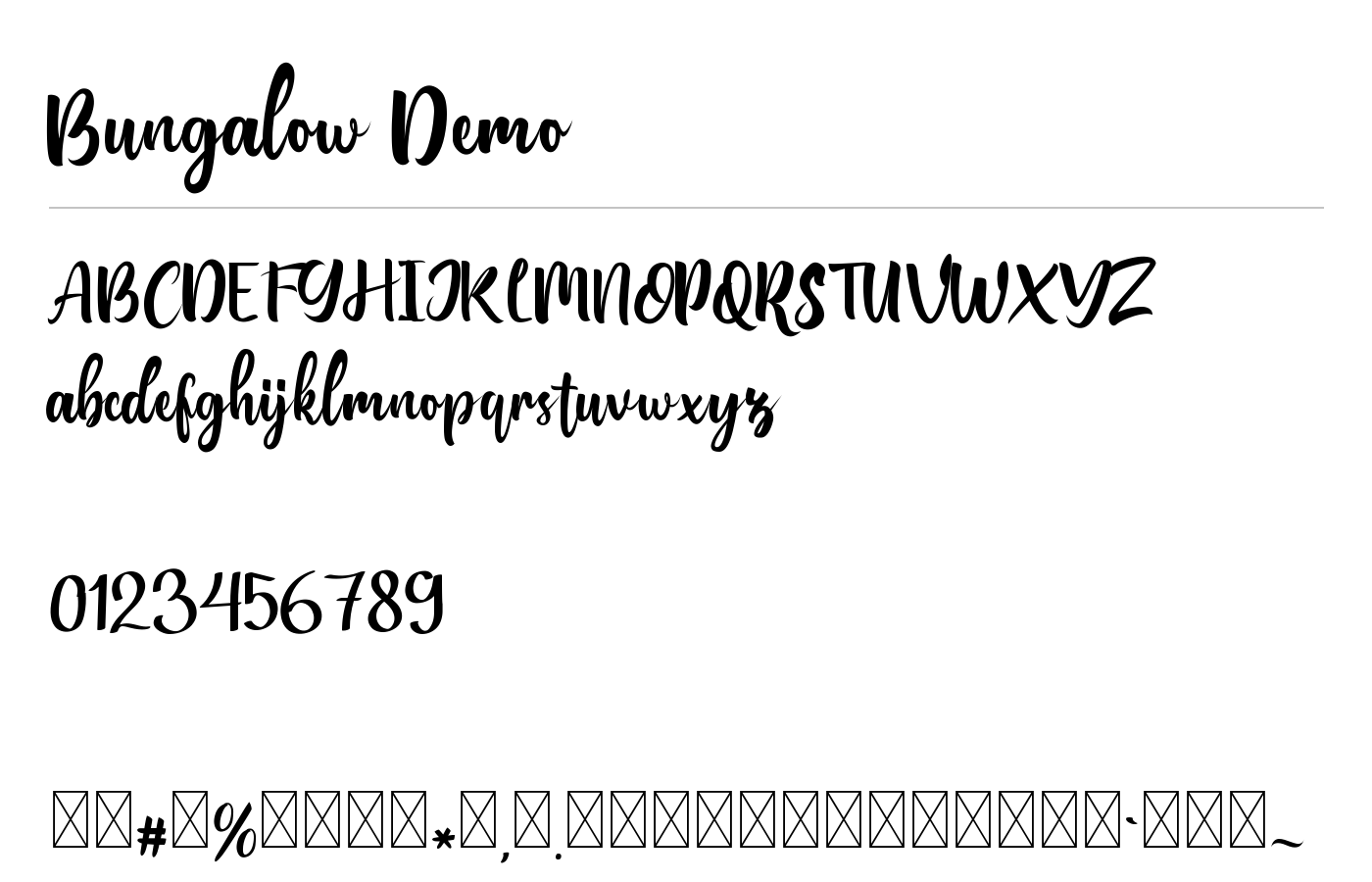
Bungalow Demo is a lively and casual script font with a hand-lettered feel, featuring smooth, flowing strokes and a medium weight that makes it both eye-catching and approachable. Its playful, slightly informal style lends itself perfectly to creative branding, invitations, and lifestyle projects where a warm, personal touch is desired. This font works best for headlines, logos, and packaging that seek to convey friendliness and charm.
Bungalow Demo Font
About Bungalow Demo Font